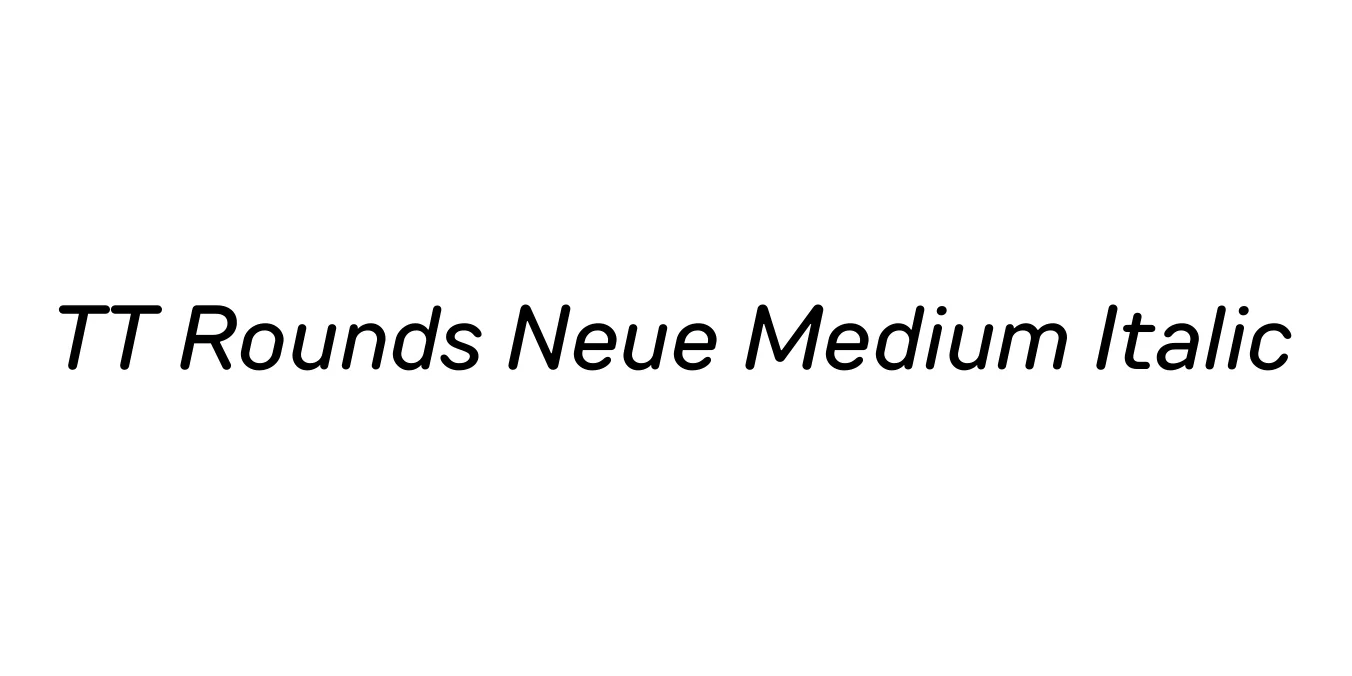
TT Rounds Neue Medium Italic
Designed by TypeType Team
| Category | Rounded Sans Serif |
| Similar Fonts | Arial Rounded, VAG Rounded, Gotham Rounded, Proxima Soft |
TT Rounds Neue Medium Italic is a contemporary evolution of the original TT Rounds family, redesigned to meet modern technical standards and aesthetic demands. Developed by the TypeType team, this typeface features reworked proportions and a more balanced character set that ensures optimal legibility across both digital and print media. The 'Medium Italic' weight provides a sophisticated yet approachable presence, blending geometric precision with soft, rounded terminals for a friendly visual language.
Historically, this font family was created to fill the gap for a professional, high-quality rounded sans-serif that supports a vast range of languages and OpenType features. The 'Neue' version introduces improved kerning, expanded character support, and refined geometry. Its distinctive soft edges evoke a sense of warmth and reliability, making it a versatile tool for designers aiming to convey a modern, human-centric feel in corporate or creative projects.
TT Rounds Neue Medium Italic Best Uses
Perfect for creating approachable and warm visual identities for modern companies.
Ideal for mobile apps and web platforms that require high legibility with a soft touch.
Excellent for children's books, packaging, and friendly advertising campaigns.
Effective for grabbing attention in editorial layouts while maintaining a gentle tone.